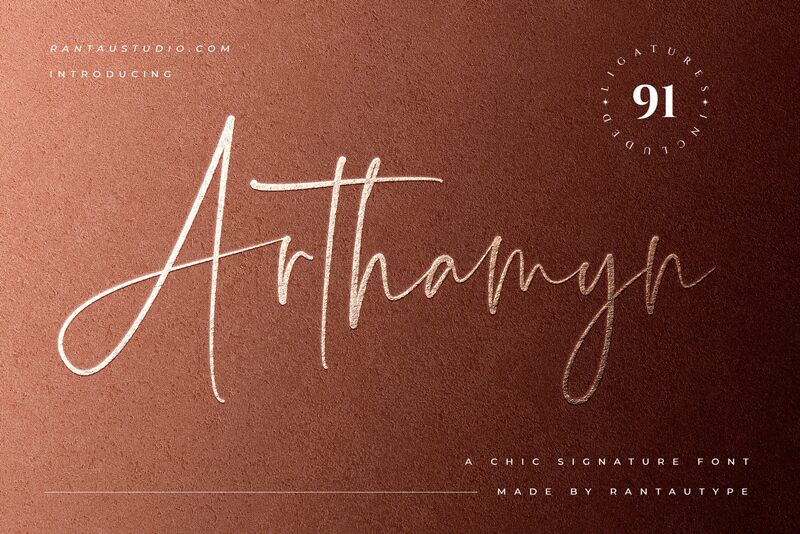
Arthamyn
Arthamyn font is a new font style by Rantautype characterized by a natural flow and modern look. This handwritten font finds its inspiration in cursive strokes as they appear spontaneously on paper and combine to modern writing as smooth lines draped across each letter. It uses less contrasts to compose with precision an eye-pleasing signature of free-flowing connected characters in casual mood carrying a clean, elegant appearance.
An ideal tool for larger designs, Arthamyn can be used for quotes, business cards, branding your business logo or even fashion design making it versatile enough suited towards wedding invitation cards or personal correspondence too! Finally posters are no exception either; ideal medium where this light weight handwritten style comes into own making statement anywhere large prints may go! Perfect also online usage cases such blogs & social media content needing special touch including instagram posts if engage audiences alike!